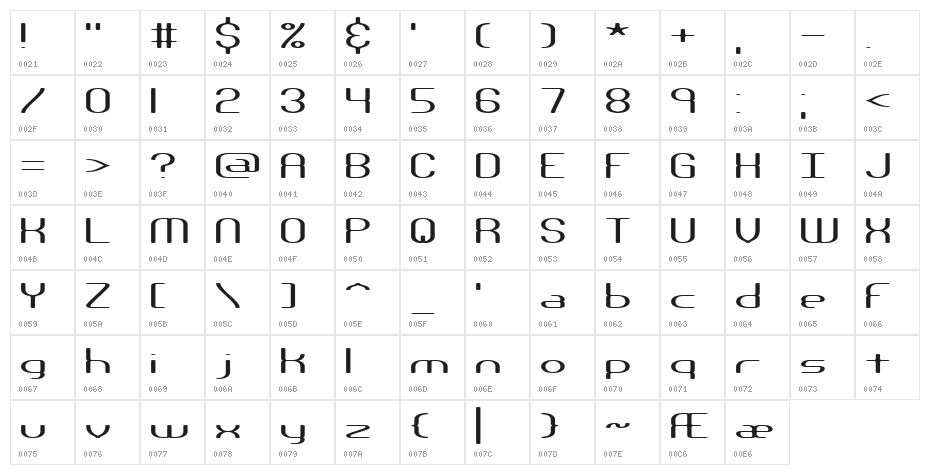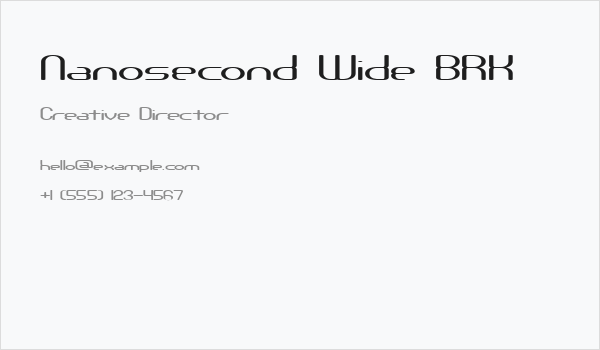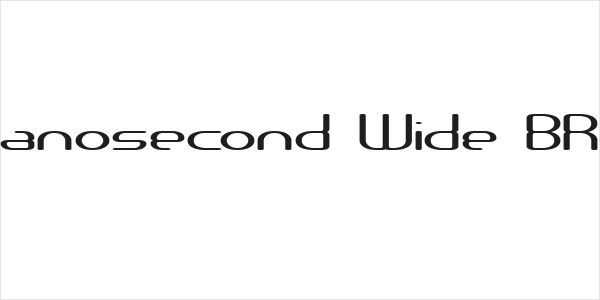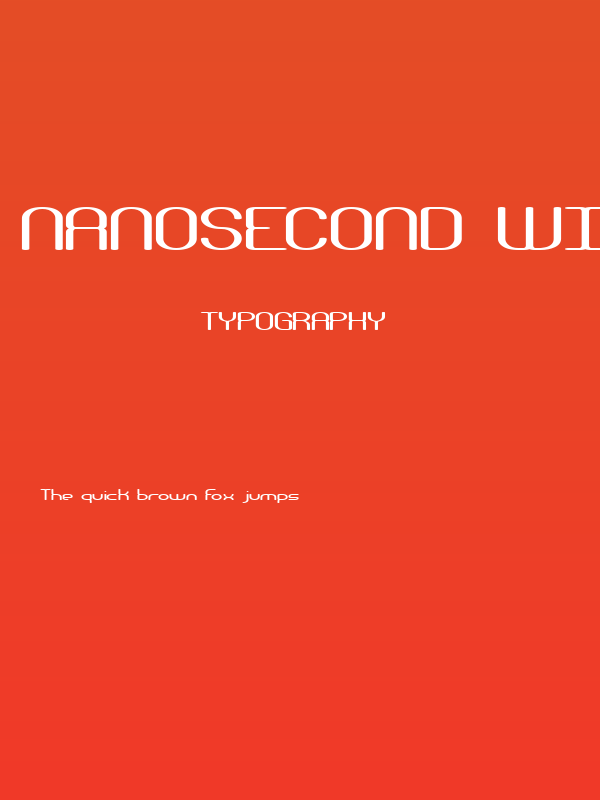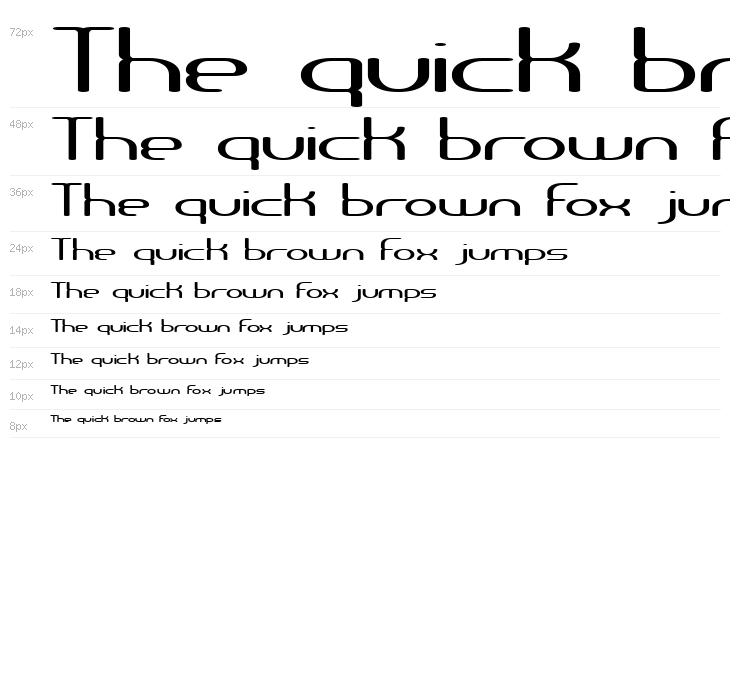
Nanosecond Wide BRK Font
Nanosecond Wide BRK Description
This font features a modern, futuristic design with rounded edges and a geometric structure. The characters are wide and evenly spaced, creating a clean and open appearance. The uppercase and lowercase letters maintain a consistent style, with smooth curves and minimalistic lines. Numbers and special characters are designed to match the overall aesthetic, ensuring uniformity across all glyphs. The font's unique style makes it suitable for projects that require a contemporary and tech-savvy look.
| Overall Style | Futuristic and clean |
| Use Case | Headlines, Logos, Digital interfaces |
| Proposed Projects | Ideal for technology branding, modern web design, digital interfaces, and futuristic-themed projects. |